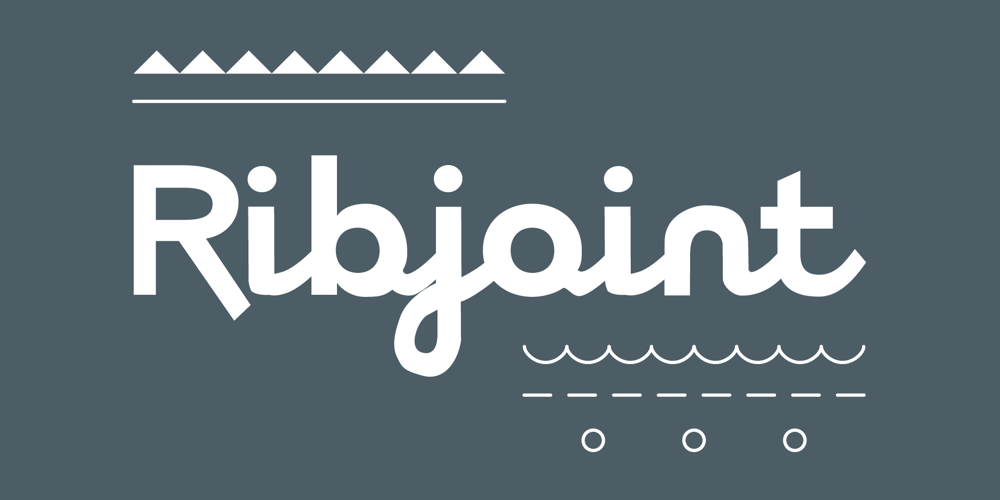
Ribjoint Font Family was designed by Chank Diesel and published by Chank. Ribjoint contains 1 styles and family package options. Created by Chank in 1992, Ribjoint was Chank’s first attempt at creating a Egyptian, cursive font on the computer. Writing cursive with a pencil sure is easy, but getting all the letters to link up correctly in computerized font format is a bit tricky. Not the most graceful script in the world, but it works good enough for a BBQ pit.